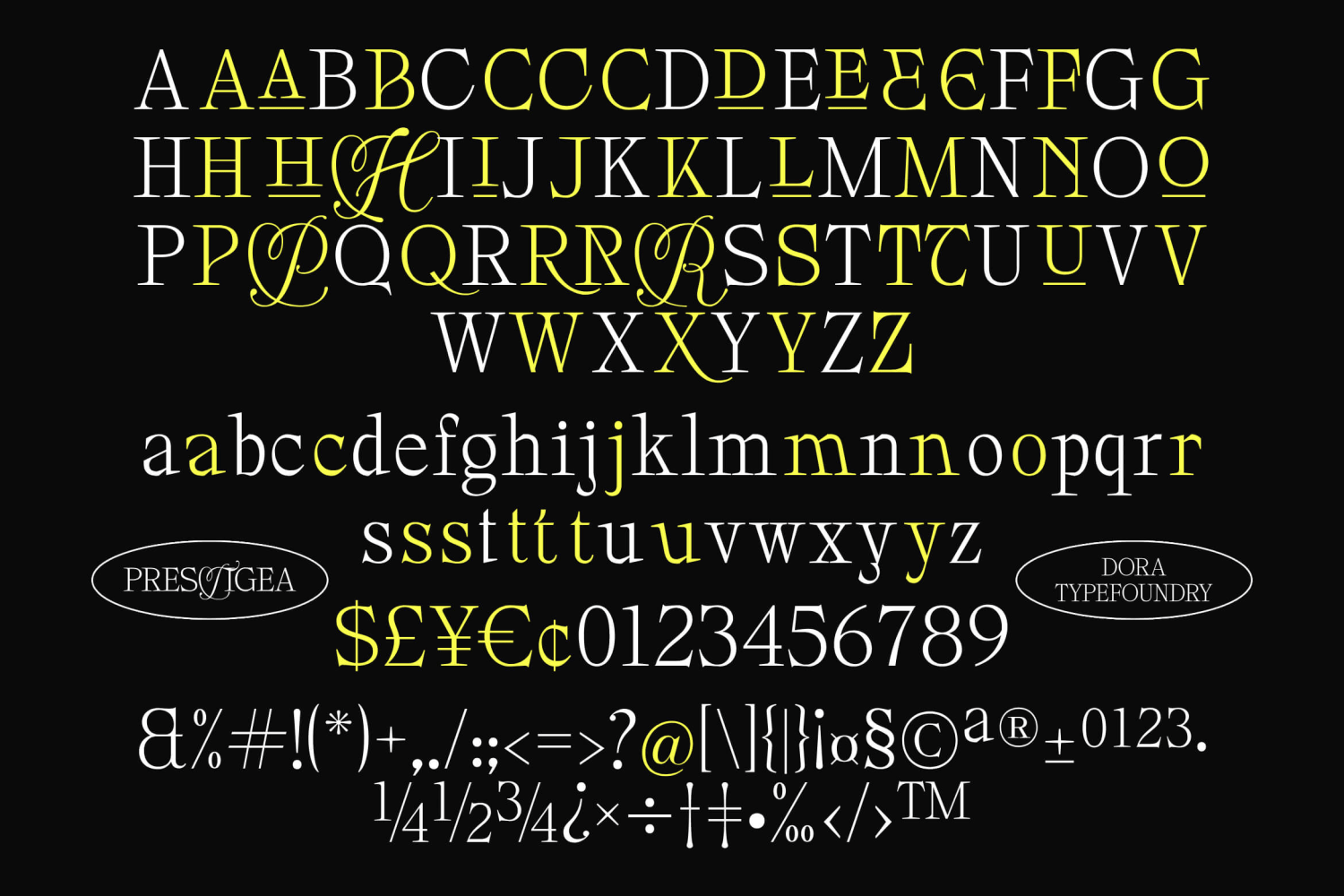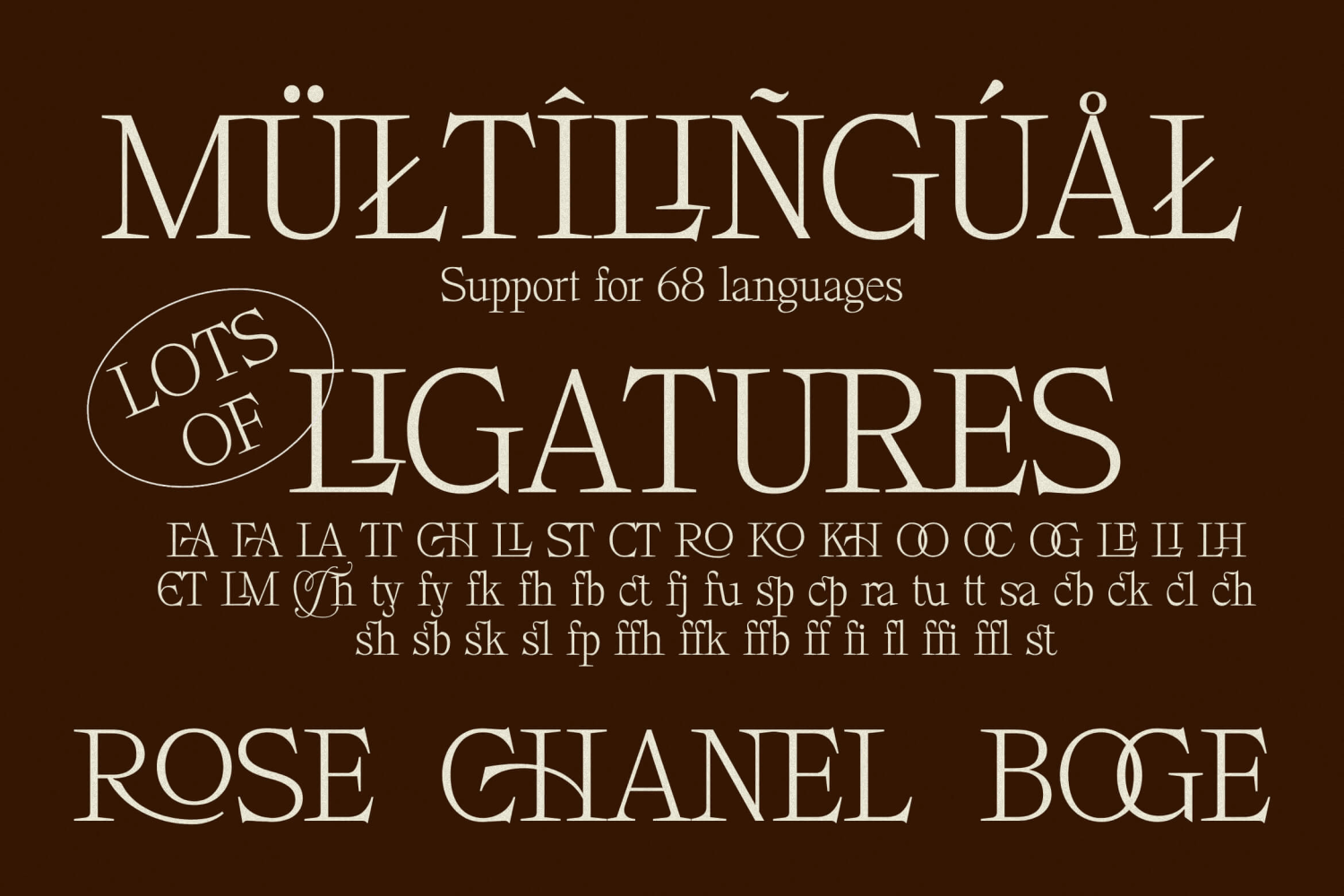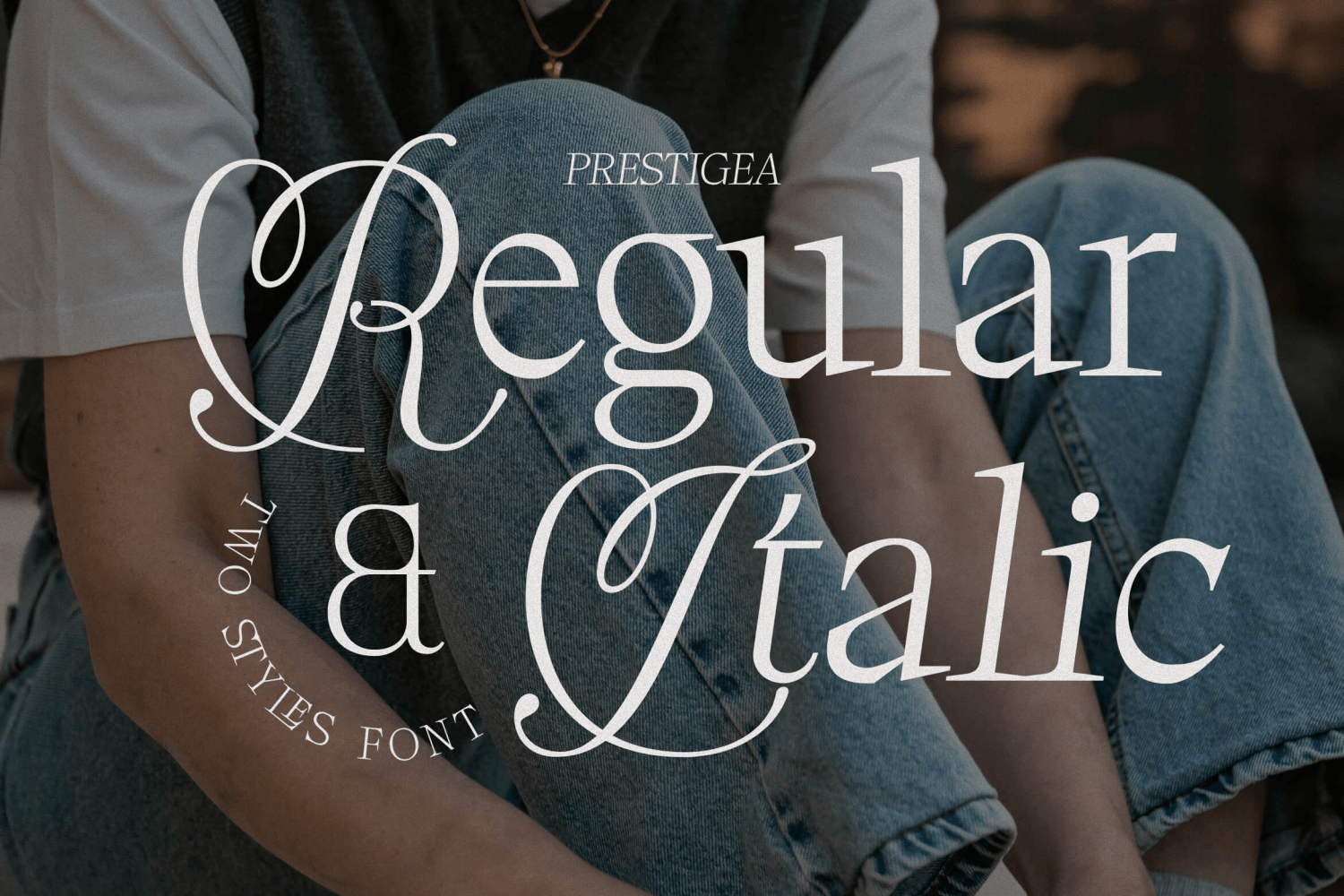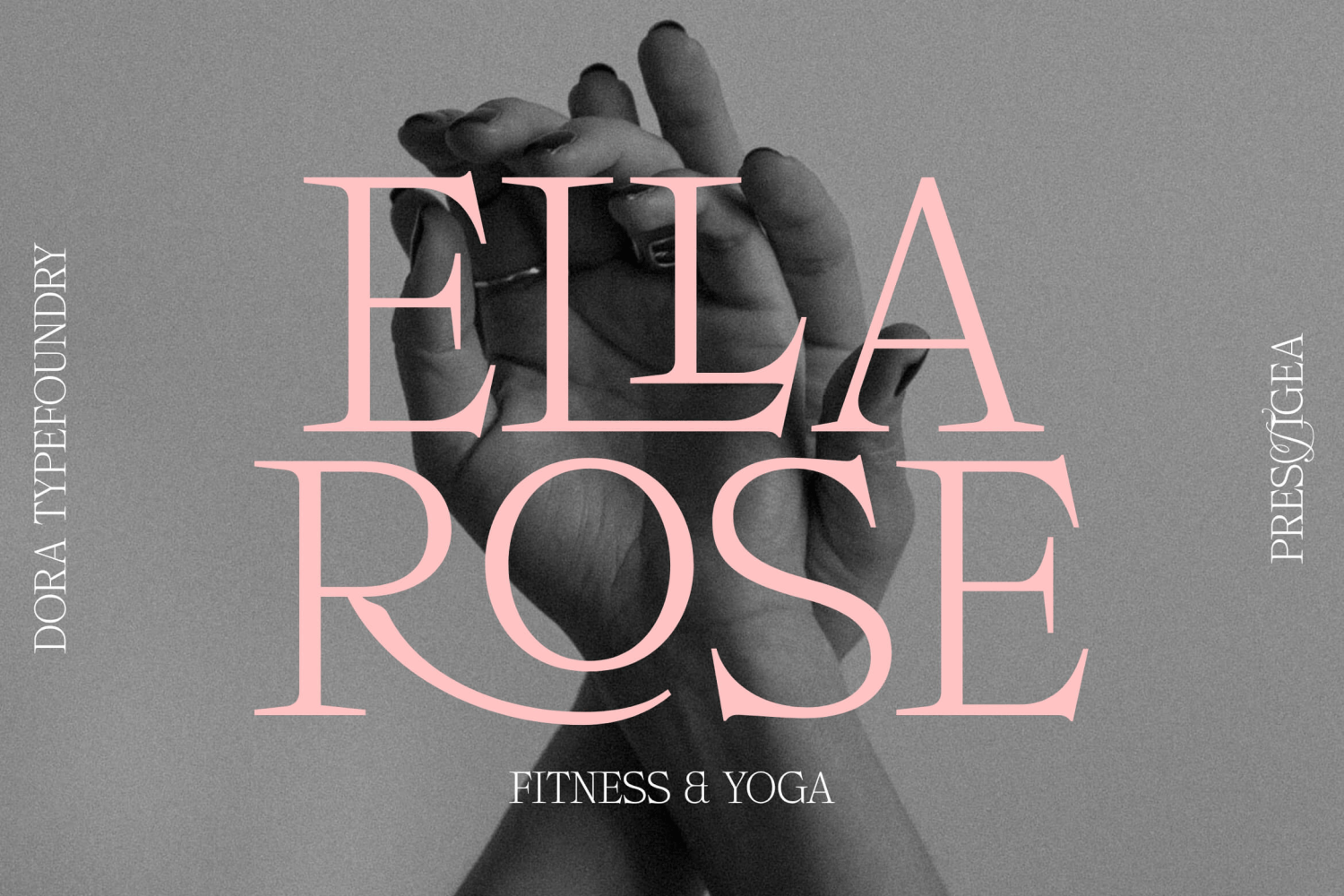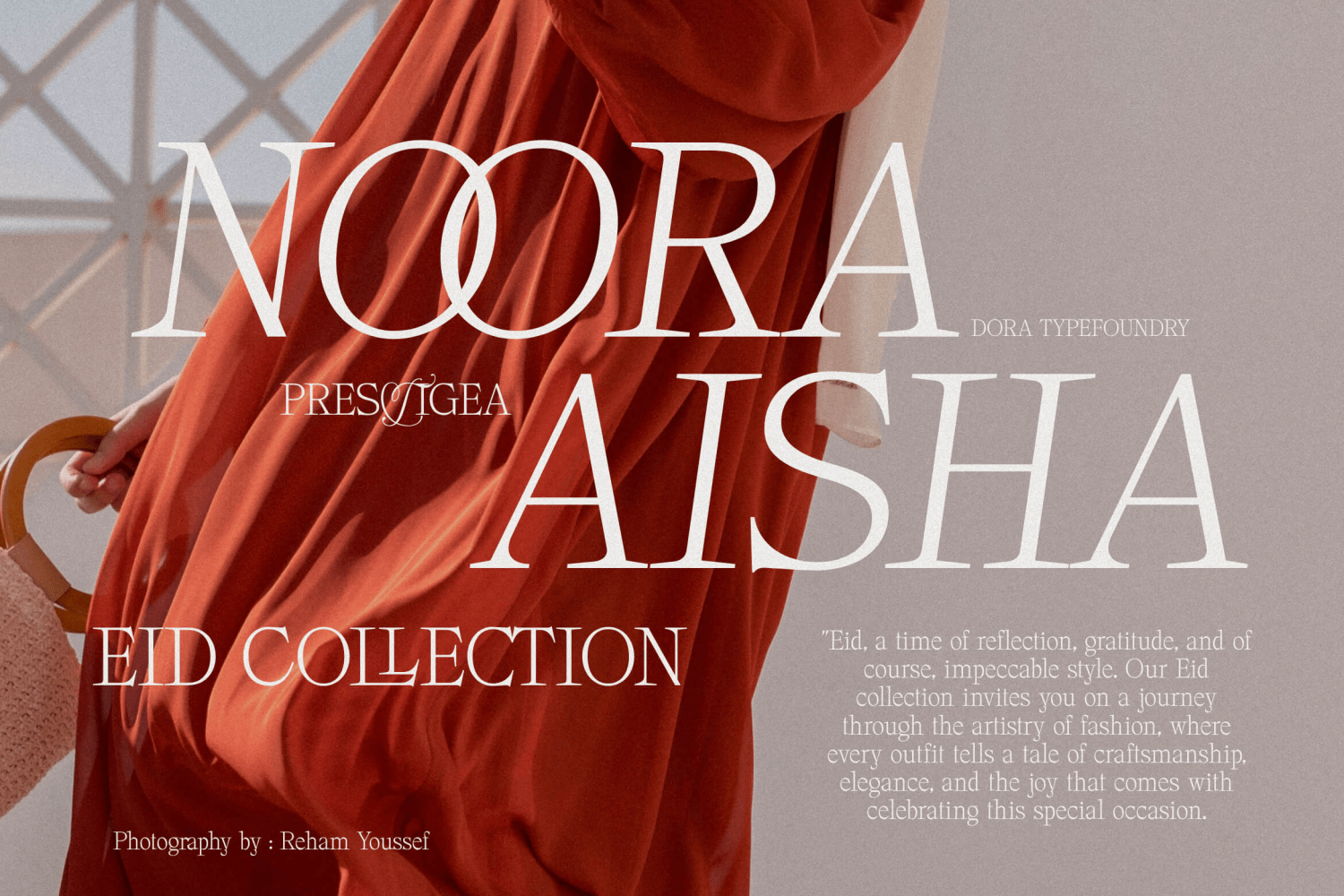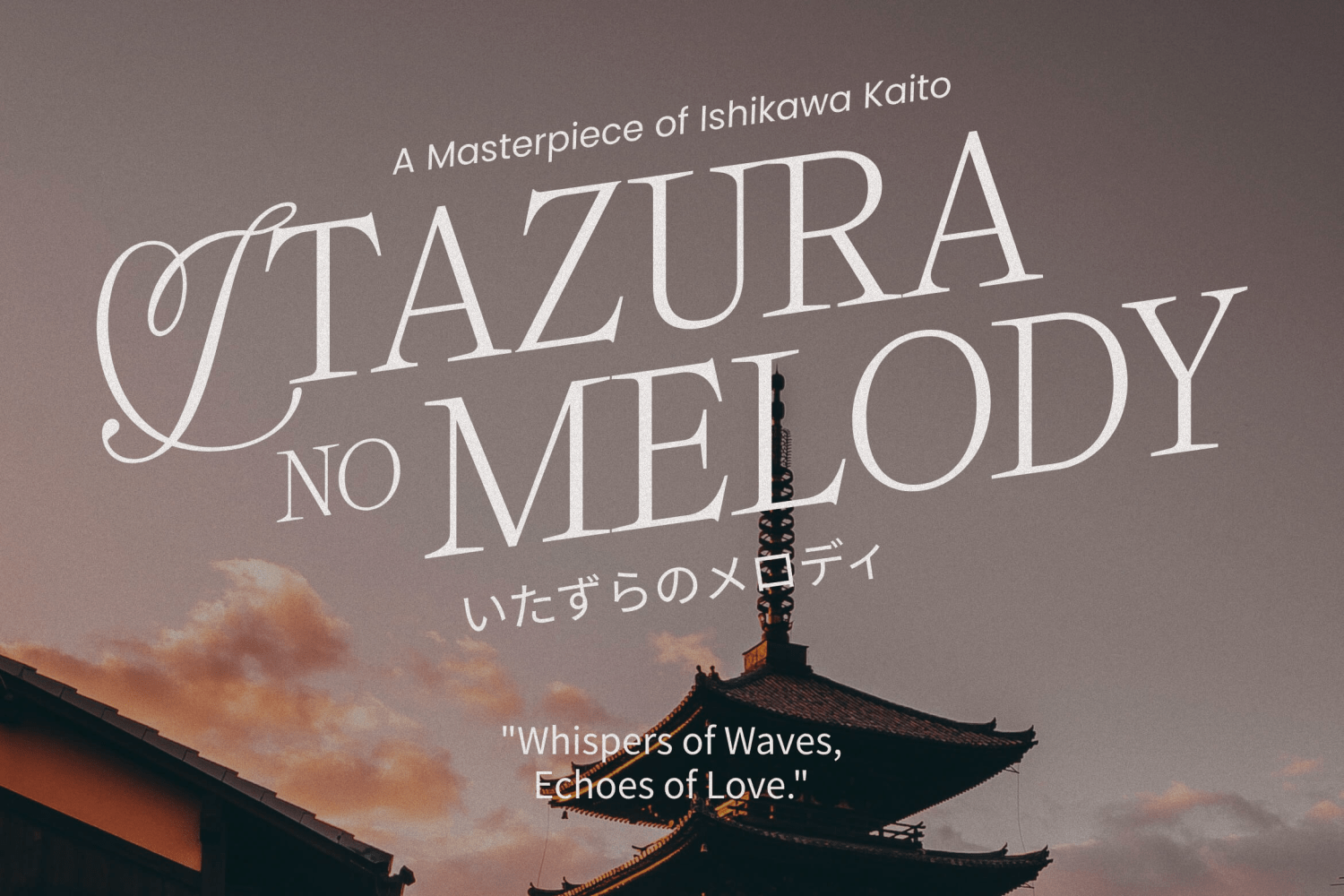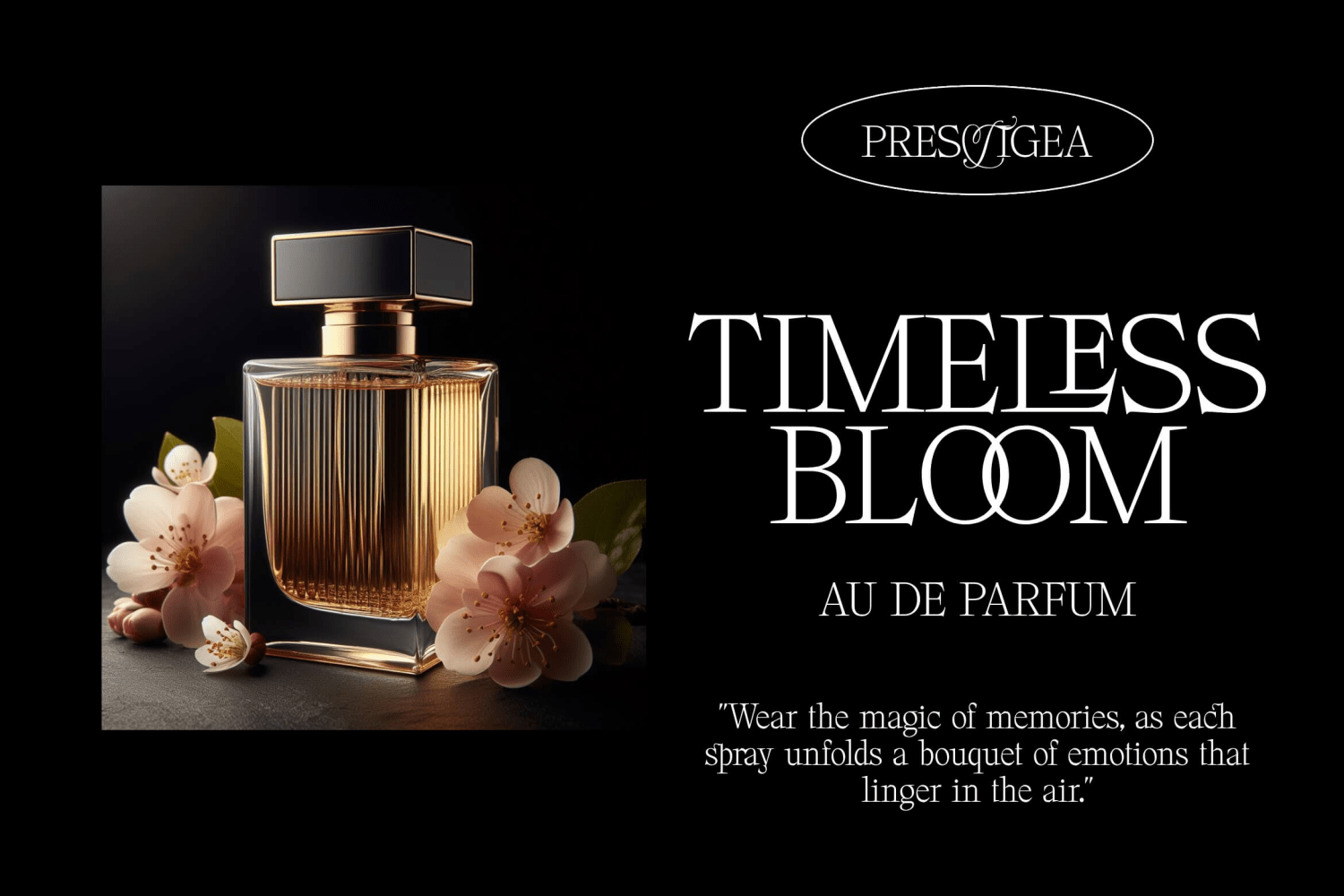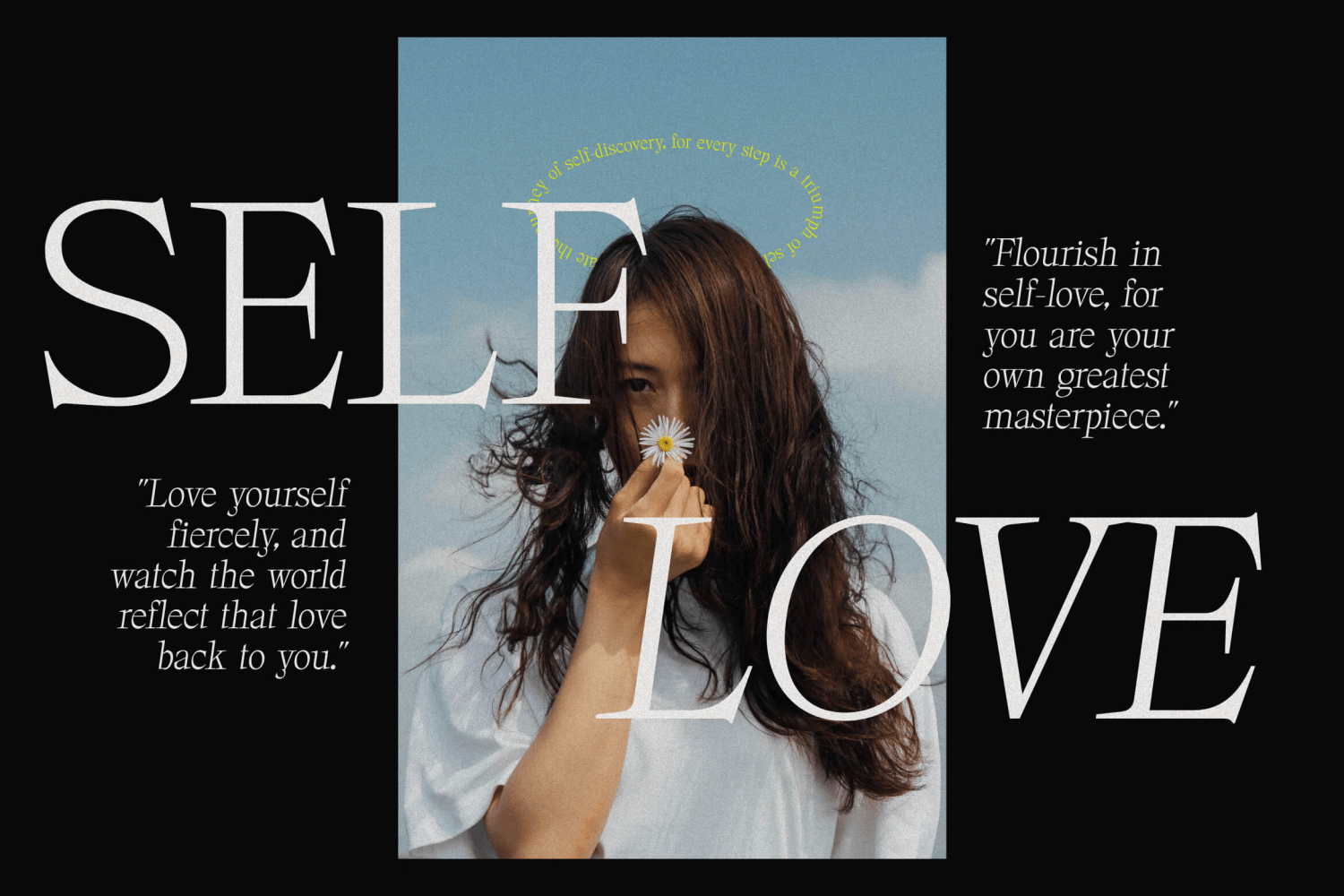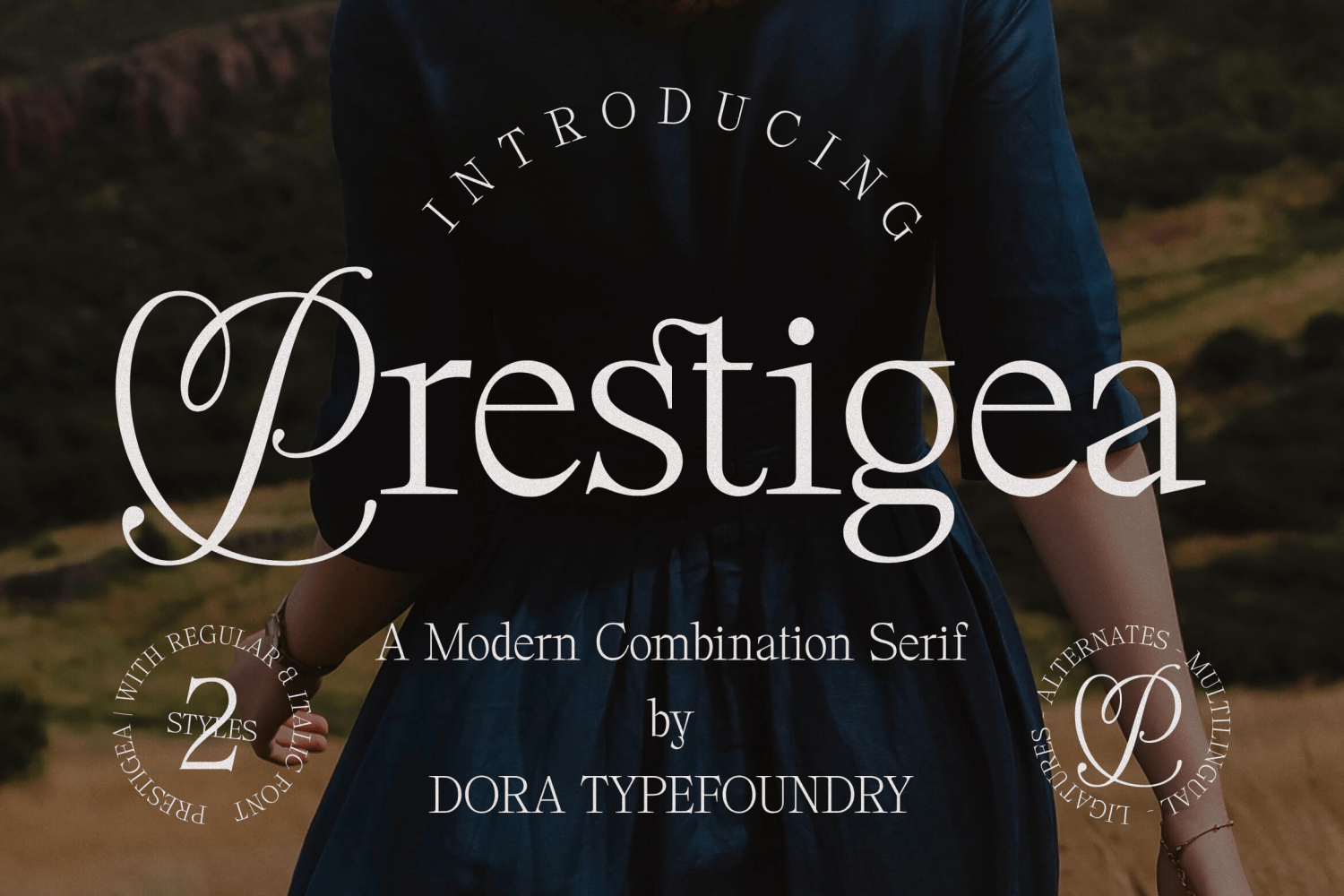
Prestigea
About Prestigea
Prestigea is a simple and clean serif display font added with some elegant & nostalgic script letters. This type of font is equipped with more than 50 ligatures and 51 alternative glyphs. It is very suitable for your various needs such as branding…